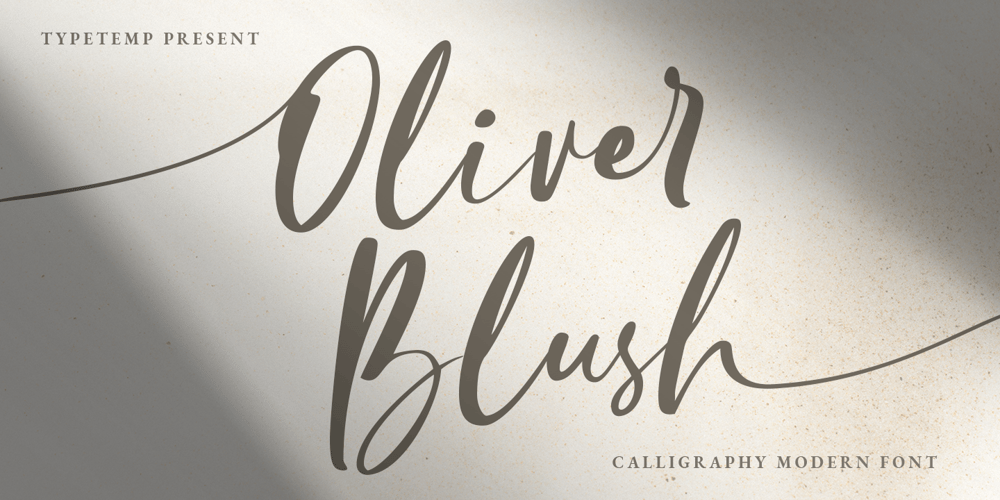
Oliver Blush
Oliver Blush font
Oliver Blush Font Family was designed by Egi Ahmad Mufid and published by Typetemp Studio. Oliver Blush contains 1 styles and family package options. Oliver Blush Modern Calligraphy Font with alternatives and ligatures that create stunning logos, quotes, posts, blog posts. branding projects, magazine imagery, wedding invitations, and much more.Features : Multilanguange PUA Encoded Web Font Included Illustration Include (.Ai) Contact me with an inbox message If you have any question. Thank you! Happy Creating.